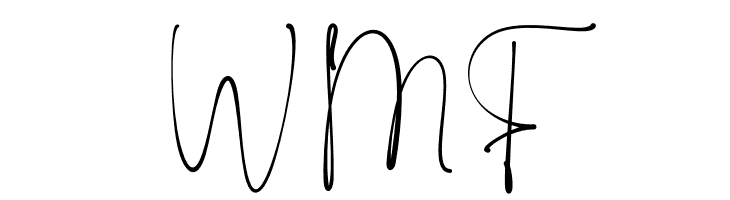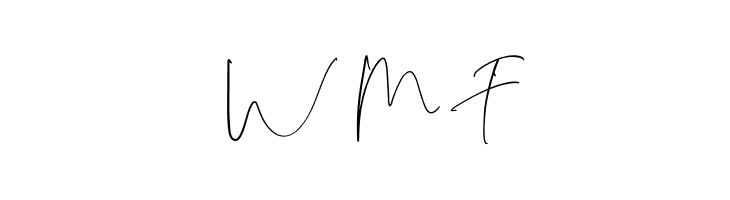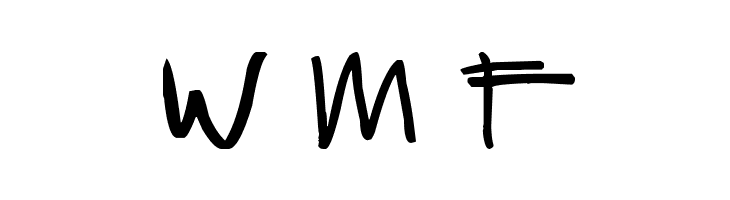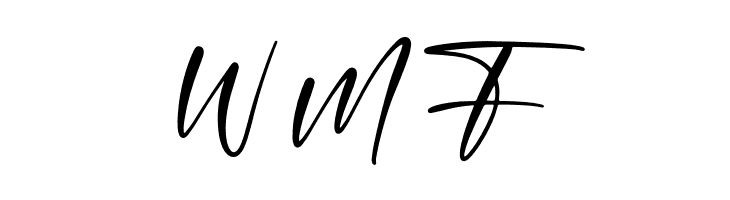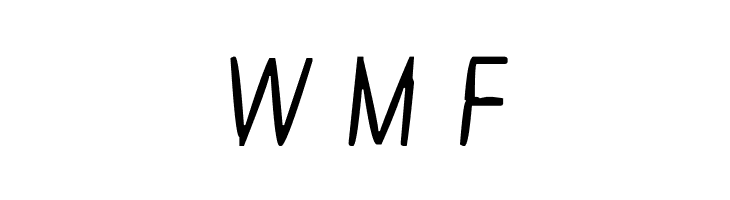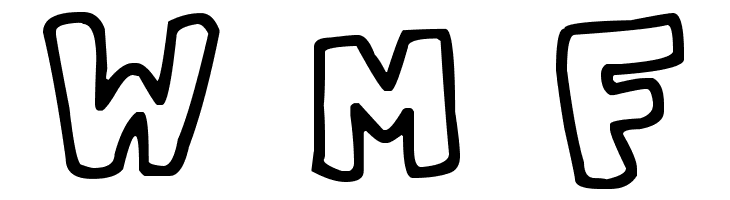
• jamesglover
A bold, geometric font with a futuristic and abstract design.
• Janmeja2920
• Jannatta
A lively, expressive handwritten font with fluid, dynamic strokes.
• Jannet
A playful, artistic handwritten font with flowing, interconnected letterforms.
• Japon
A bold, dynamic font with sharp, angular strokes and a hand-drawn feel.
• Jeanties Personal Use Only !!!
A lively handwritten font with fluid, dynamic strokes and a playful, modern style.
• Jed the Humanoid
• Jed the Humanoid [Demo Version]
A bold, rounded font with a futuristic and playful design.
• Jelistha
A lively, cursive font with fluid, connected characters and a handwritten feel.
• Jelly Wobblers
( Fonts by Darrell Flood )
A playful, hand-drawn font with bold, rounded characters and a whimsical style.
• Jellybost
( Fonts by Holydie Studio )
A playful, bold font with rounded, bubbly characters ideal for creative projects.
• Jellyka Delicious Cake
A whimsical, elegant cursive script with ornate flourishes.
• Jenn Bee
• Jerome
A bold, narrow serif font with a strong, authoritative presence.
• Jigga jigga
A modern, geometric font with a futuristic, tech-inspired design.
• Jimmy Flashcard
A playful, handwritten font with a casual and approachable style.
• joeytisoy
• Jolystmas Demo
An elegant and flowing script font with decorative flourishes.
• JOPPATOWNE
• Julietano
An elegant script font with graceful, flowing strokes and sophisticated curves.
• Juliette
A fluid, elegant handwritten font with a touch of informality.
• Jurik
A bold, brush-style font with dynamic strokes and a hand-painted look.